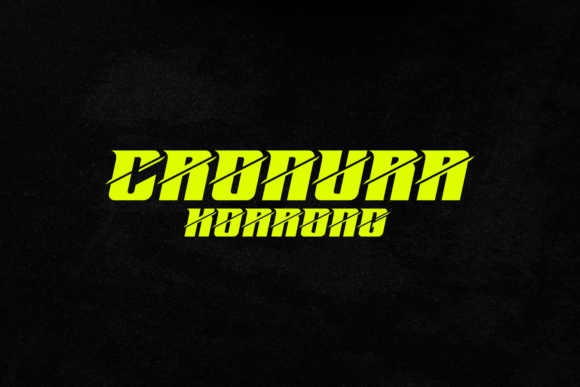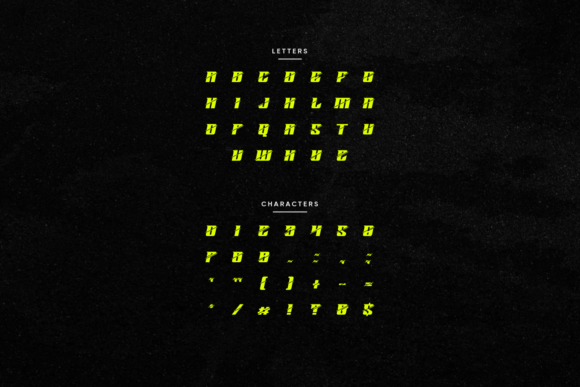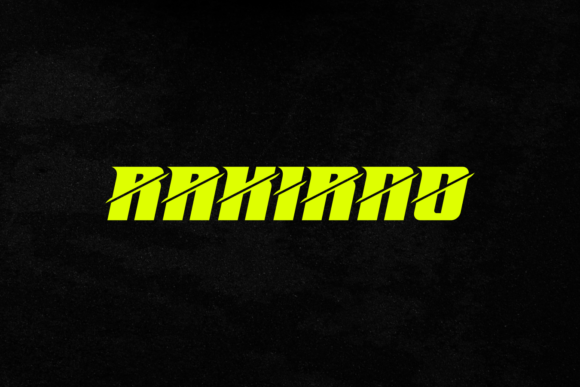
Introduction to Ronbor Font
**Ronbor** is a display sports font with visual elegance, smooth curves, and beautiful fast style, making your work look true and attractive.
This font is suitable for a wide variety of projects such as invitations, logos, branding, magazine, photography, cards, product packaging, mugs, quotes, posters, labels, signatures, and more .